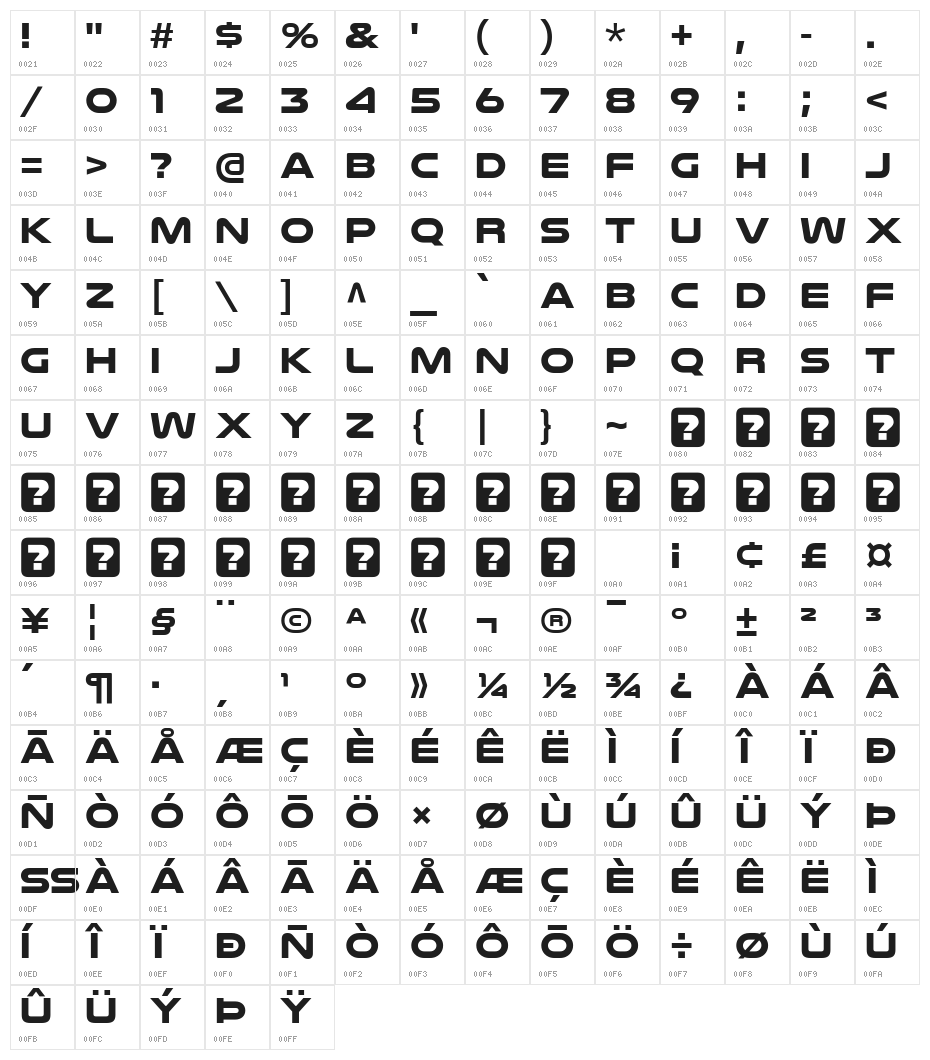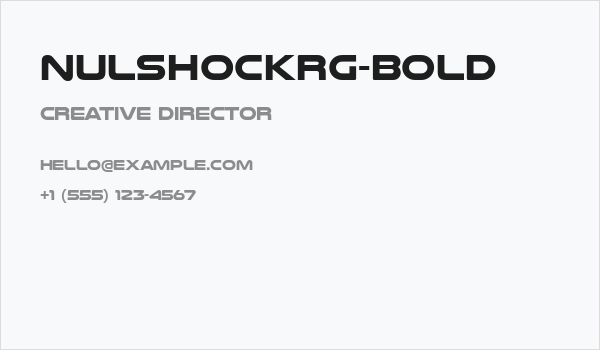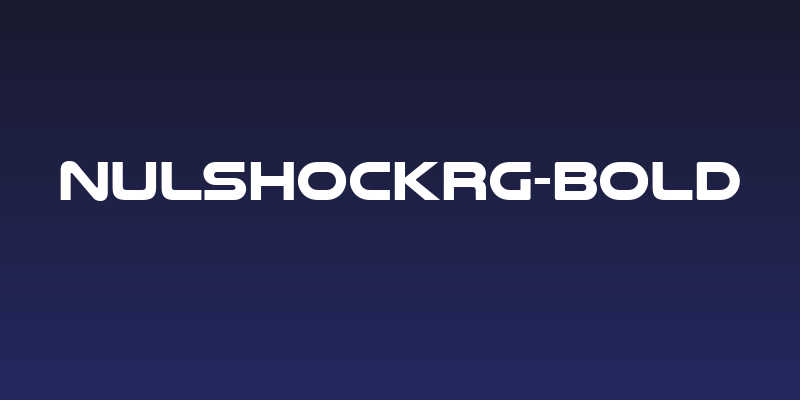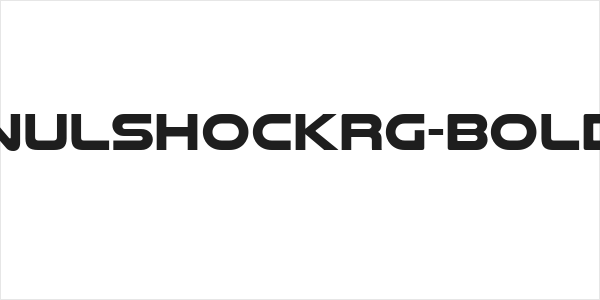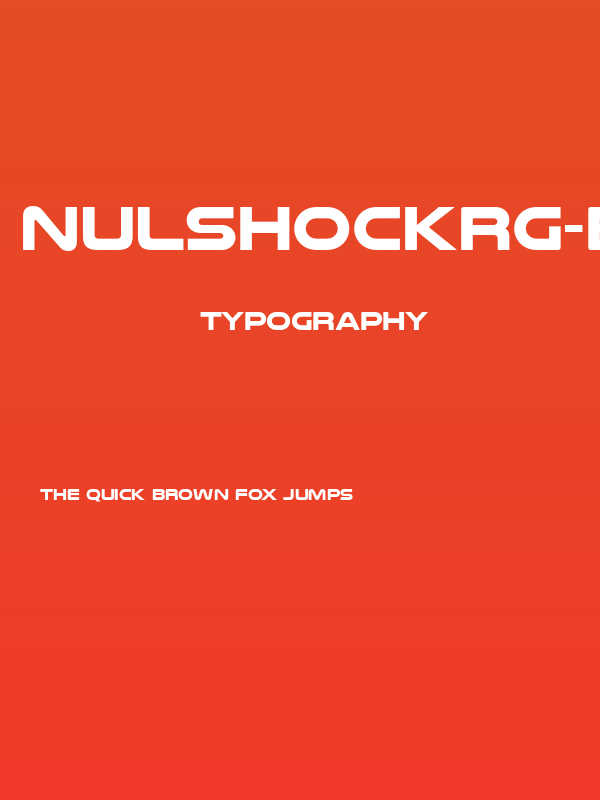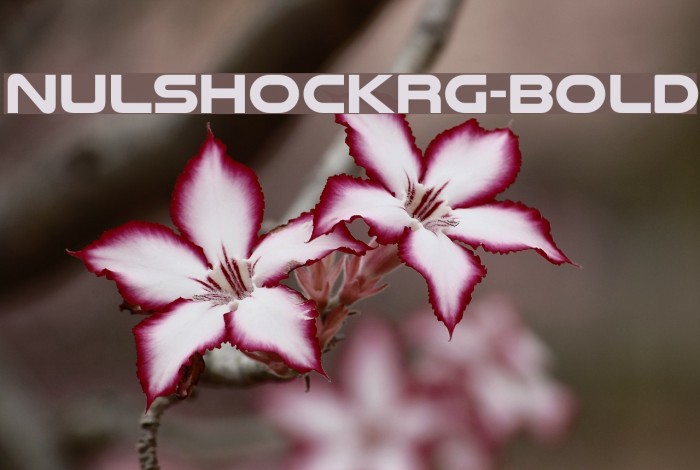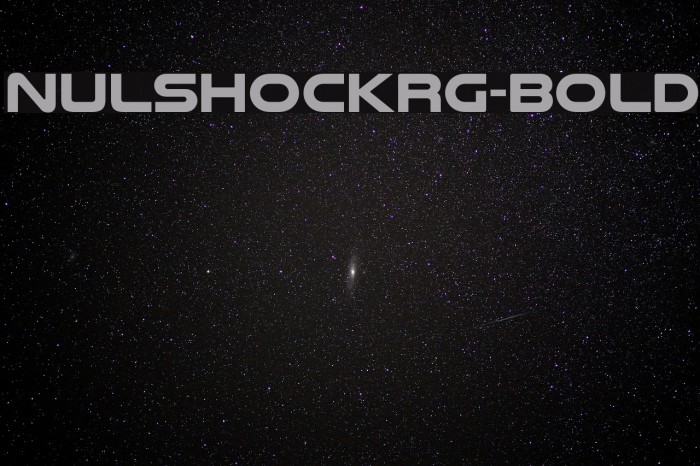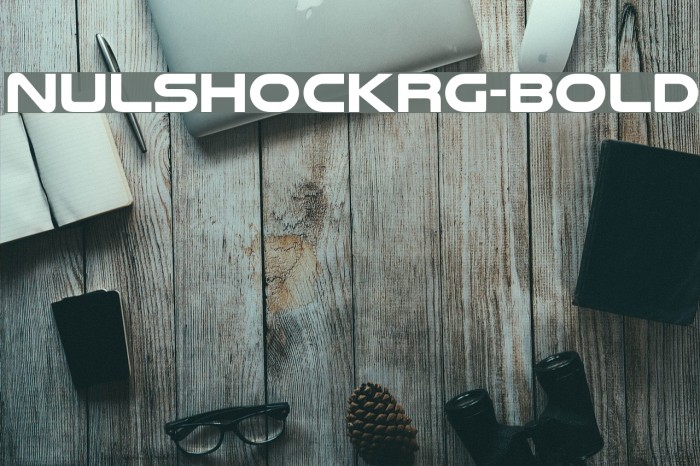
NulshockRg-Bold Font
NulshockRg-Bold Description
This font exhibits a bold and modern aesthetic with a strong geometric influence. The characters are crafted with a uniform stroke width, giving it a clean and robust appearance. The uppercase letters are particularly striking, with sharp angles and a futuristic feel. The numerals and special characters maintain the same boldness, ensuring consistency across all glyphs. This font is designed to capture attention and make a statement, making it ideal for impactful designs.
| Proposed Projects | Ideal for branding, headlines, posters, and digital interfaces where a strong, modern presence is desired. |